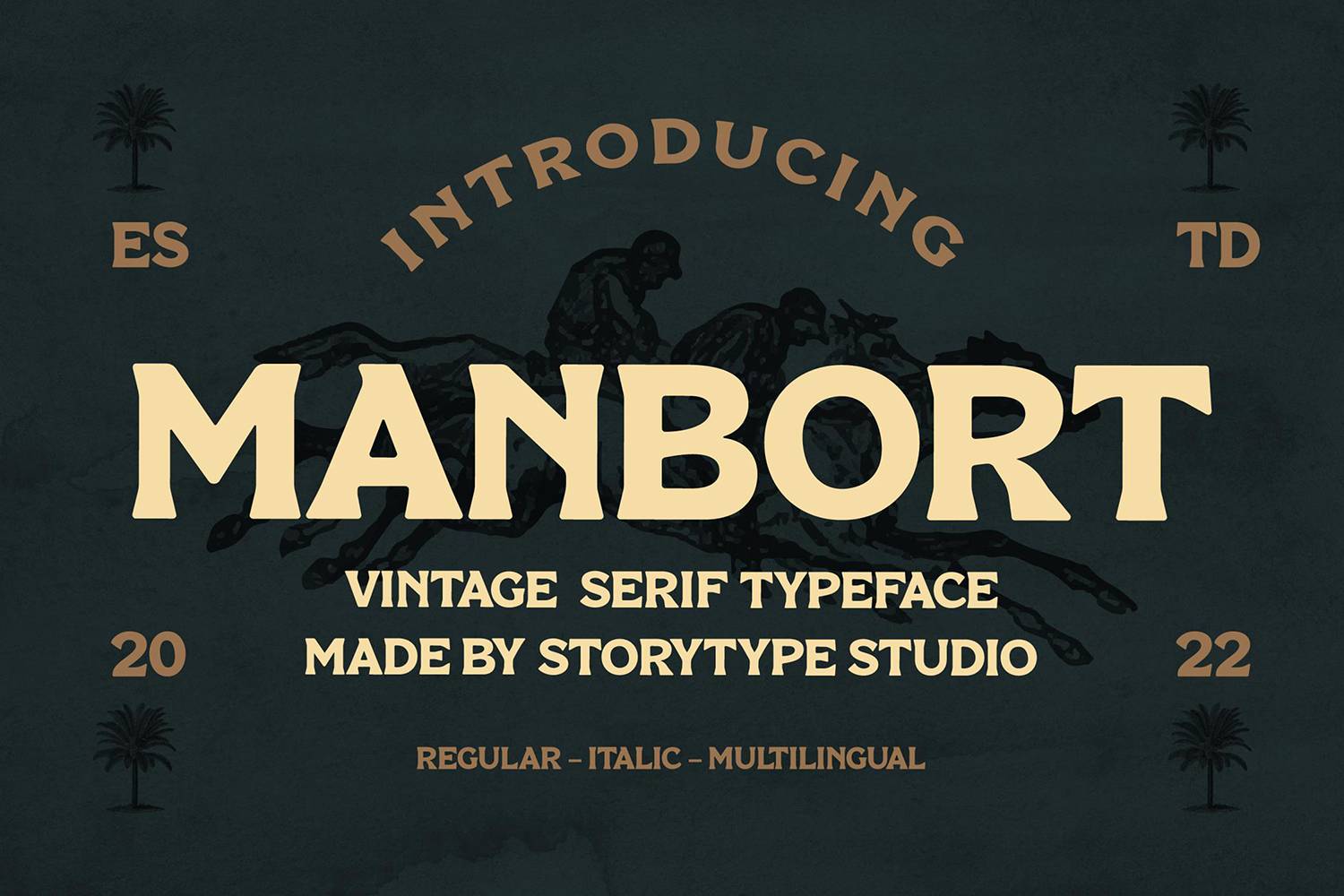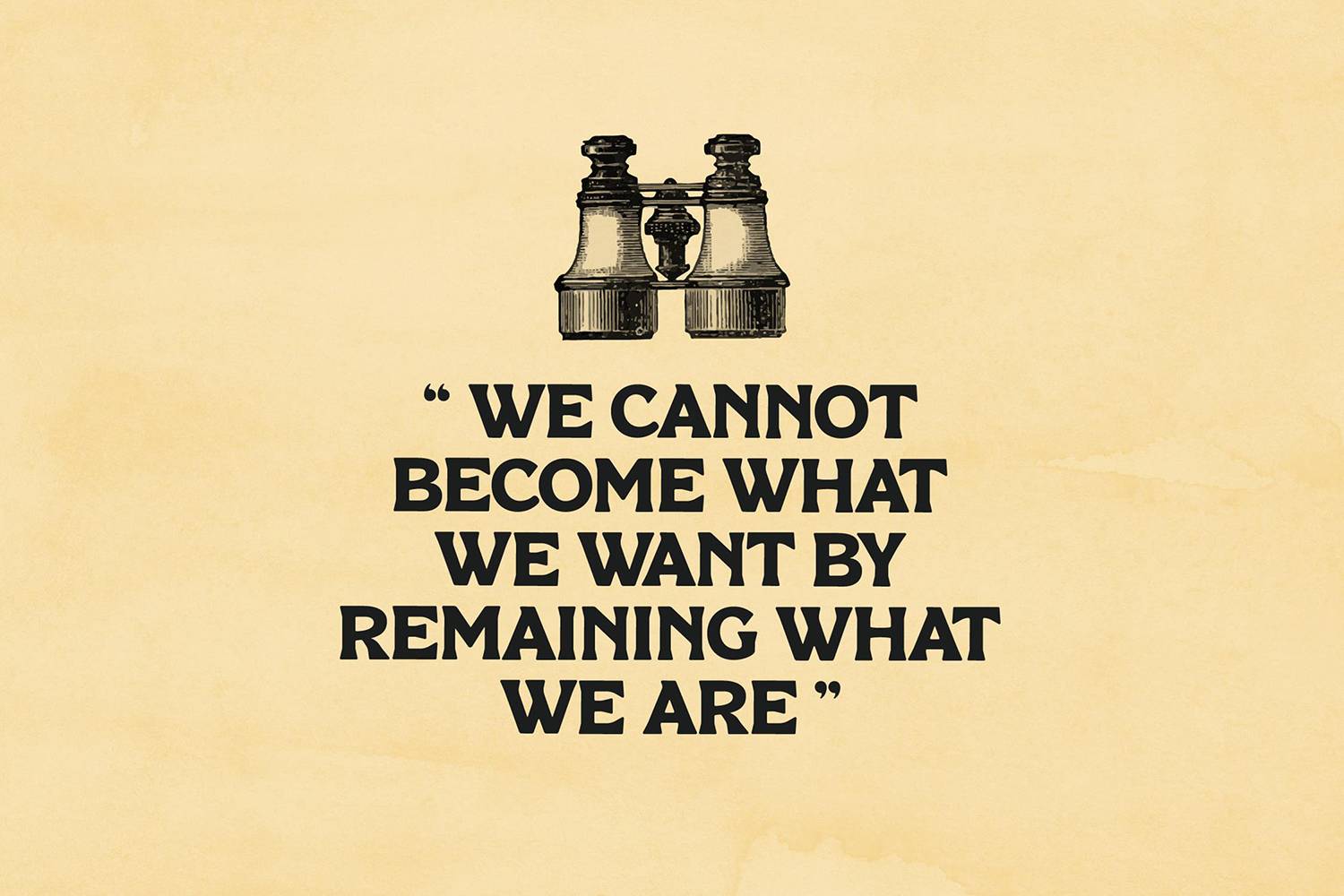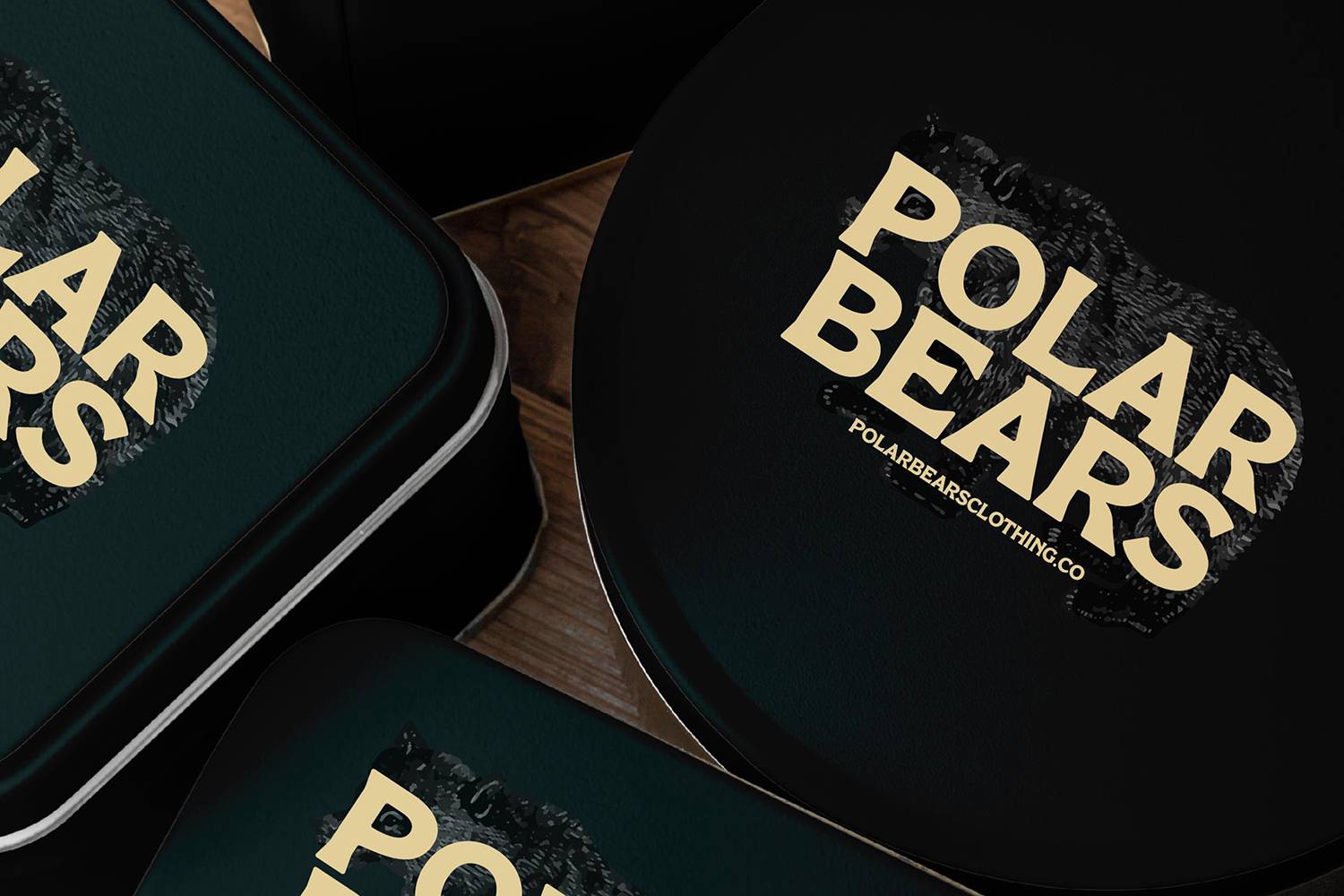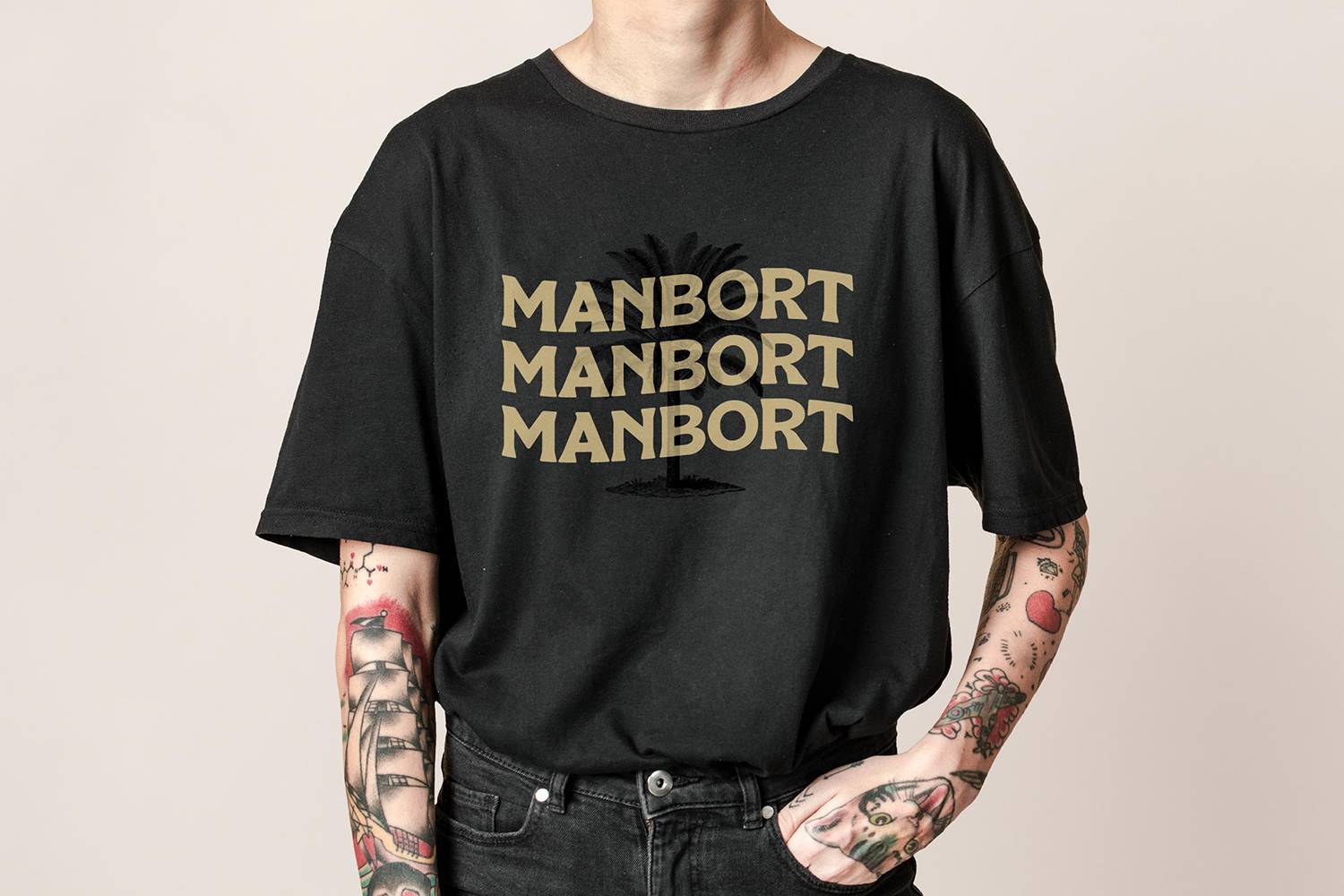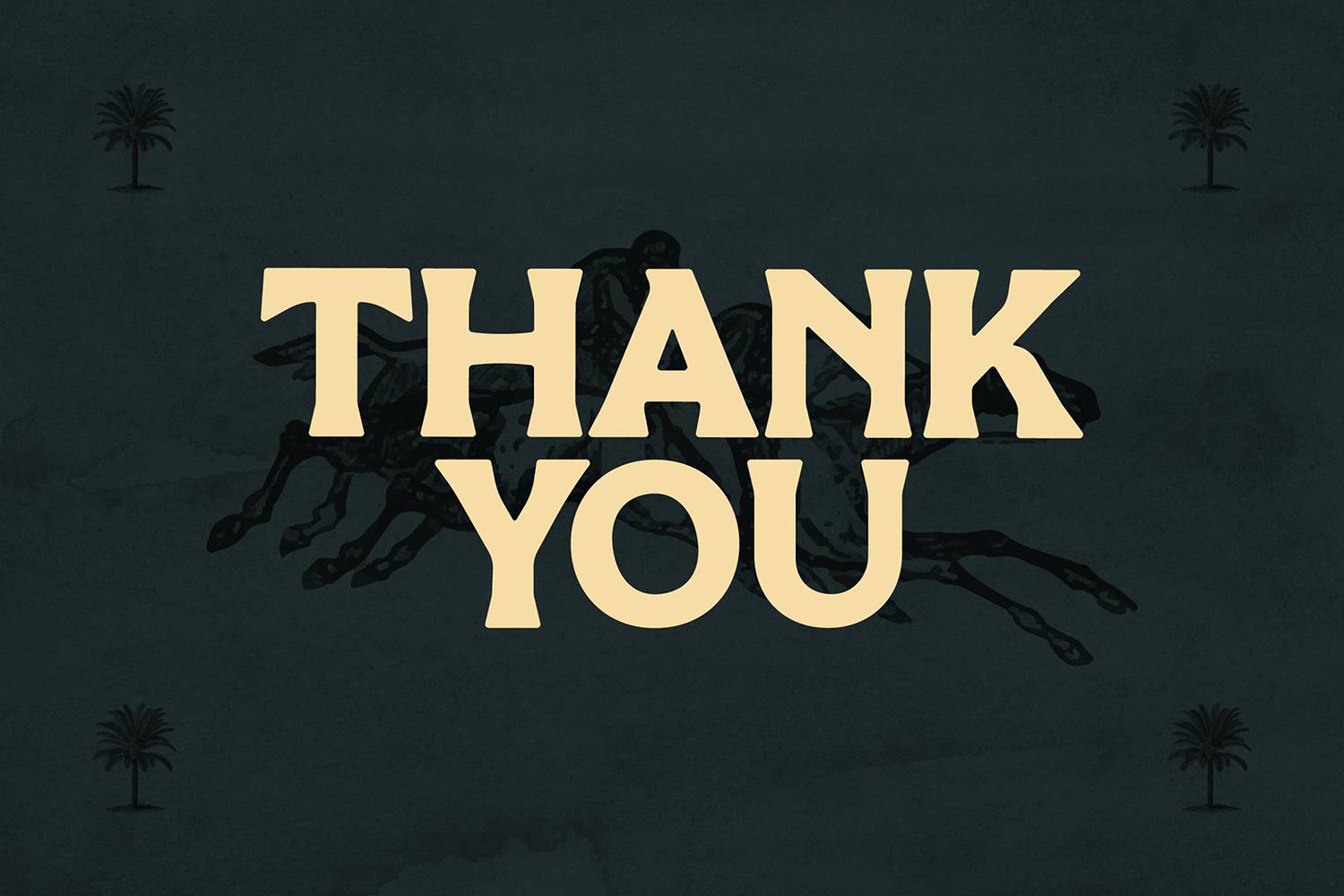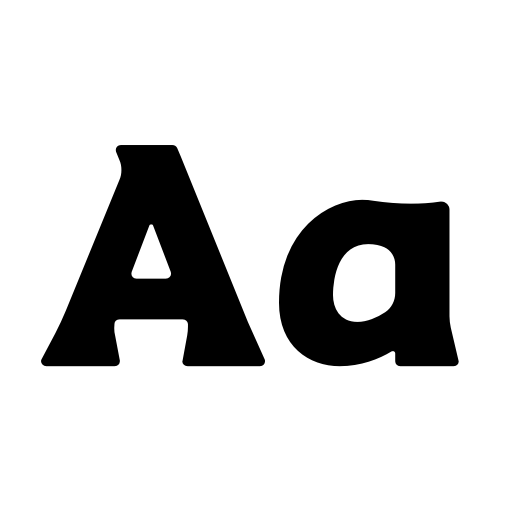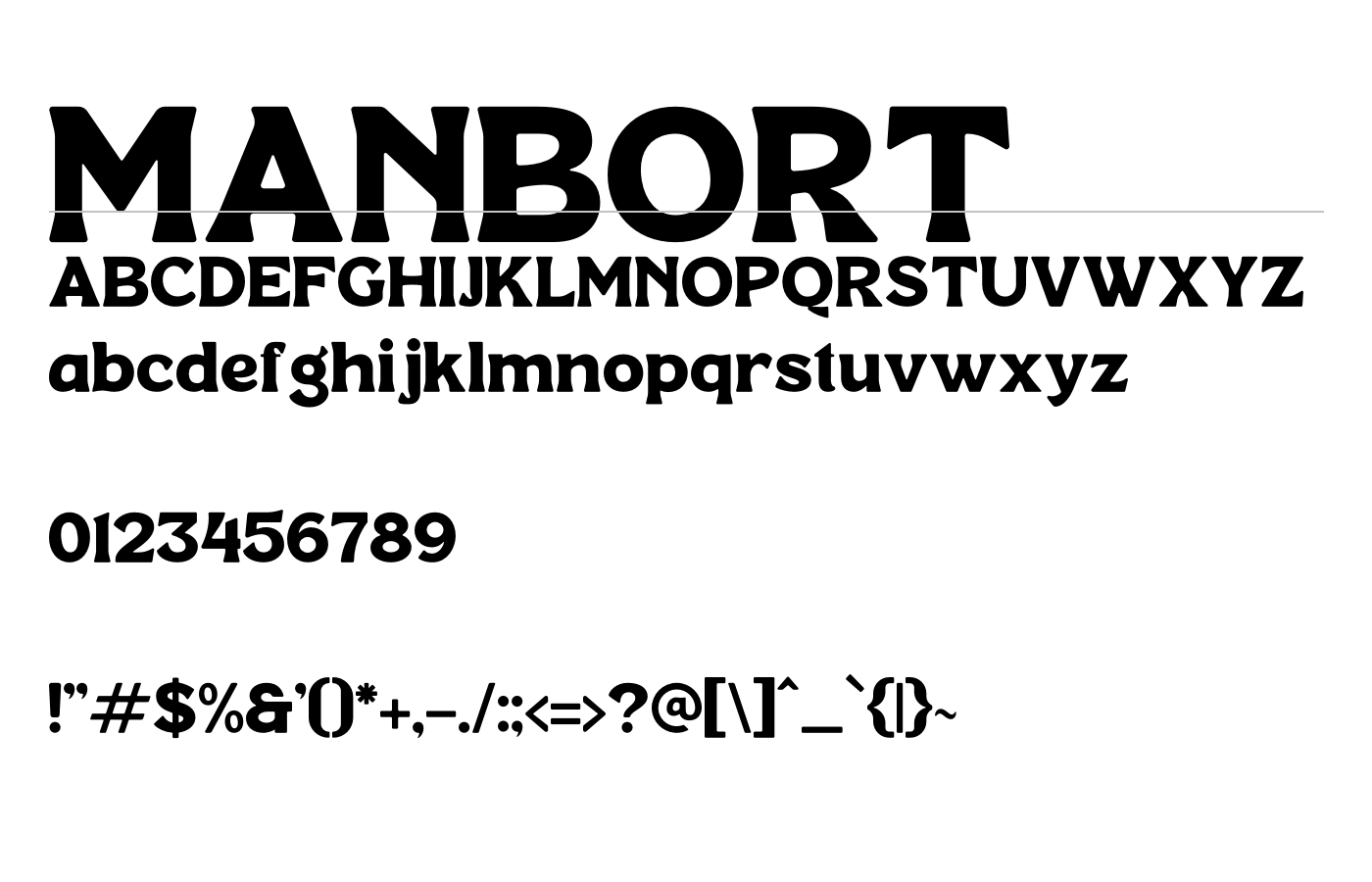
Manbort is a bold, serif font with a playful and slightly rustic character, featuring thick bracketed serifs and moderate stroke contrast that add warmth and personality. Its rounded terminals and unique letter shapes give it a friendly, approachable feel, making it well-suited for branding, headlines, and creative projects that want to convey a fun yet sturdy impression. This font works best in logos, posters, and editorial designs where a strong but inviting presence is desired.
Manbort Font
About Manbort Font